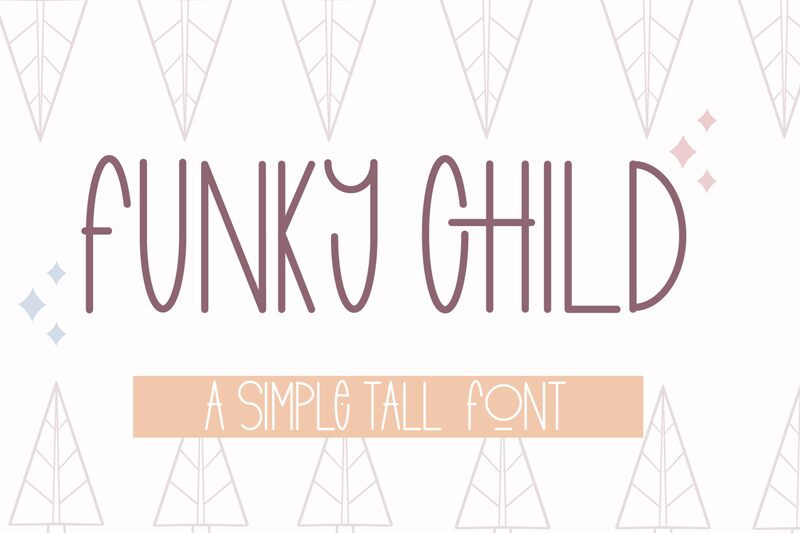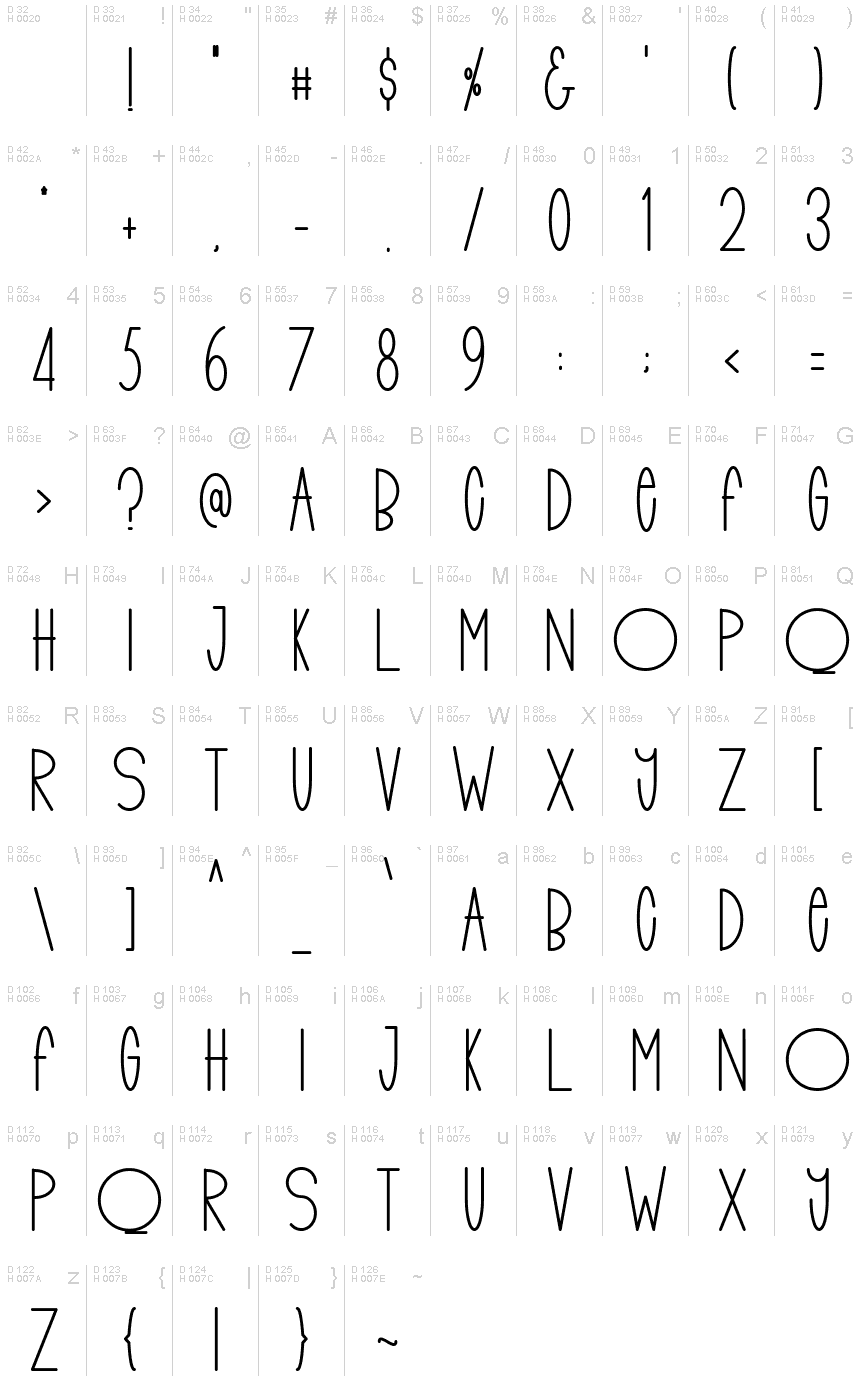
funky child
Funky Child, designed by Andang Prasetyo, is a playful and distinctive handwritten font characterized by its tall, all-caps letters that exude a funky and youthful vibe. The light weight of the font adds to its whimsical charm, making it an excellent choice for projects that require a touch of lightheartedness and originality.
The aesthetic appeal of Funky Child lies in its ability to convey informality and creativity while maintaining readability. Each character is crafted with care, ensuring that the font retains an authentic hand-drawn feel that resonates with audiences seeking a personal touch in their designs.
Perfect for greeting cards, invitations, and posters, this font's versatility extends to T-shirt designs and SVG creations. Its suitability for both personal and commercial ventures offers designers unlimited opportunities to infuse their work with this font's lively spirit. Whether you're branding a logo or designing items for sale, Funky Child is poised to become an invaluable addition to your font library—adding energy and personality wherever it's applied.